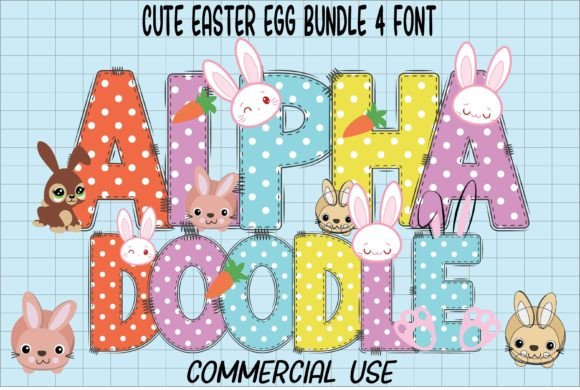
Cute Easter Egg Font: A Whimsical Typeface for Easter Celebrations
The Easter Egg font is a delightful and playful typeface that embodies the spirit of celebration and joy associated with the Easter holiday. This unique font is characterized by its lively and creative design, featuring elements inspired by traditional Easter symbols such as eggs, bunnies, flowers, and pastel colors.
Unique Design Elements
The letterforms of the Easter Egg font are adorned with intricate patterns and intricate details, resembling the decorative motifs found on Easter eggs. Each letter seems to be crafted with care and attention, adding a festive and cheerful touch to any text it graces. The fontโs design captures the essence of the Easter season, making it a perfect choice for creating eye-catching and festive designs.
Soft and Pastel Color Palette
The color palette of the Easter Egg font is typically soft and pastel, reminiscent of the hues associated with springtime. These gentle colors contribute to the overall whimsy and charm of the font, making it well-suited for a variety of Easter-themed projects, such as greeting cards, party invitations, and festive banners.
Endless Creative Possibilities
Whether used in digital or print media, the Easter Egg font brings a sense of fun and celebration to any project. Its lively and creative design makes it an ideal choice for conveying the joyful and festive atmosphere of Easter, adding a touch of whimsy to text and design elements.
- A soft and pastel color palette that evokes the feeling of springtime
The Easter Egg font is a delightful and playful typeface that is perfect for Easter-themed projects and celebrations. With its unique design elements, soft and pastel color palette, and compatibility with a range of design programs and cutting machines, this font is sure to bring a sense of fun and celebration to any project.